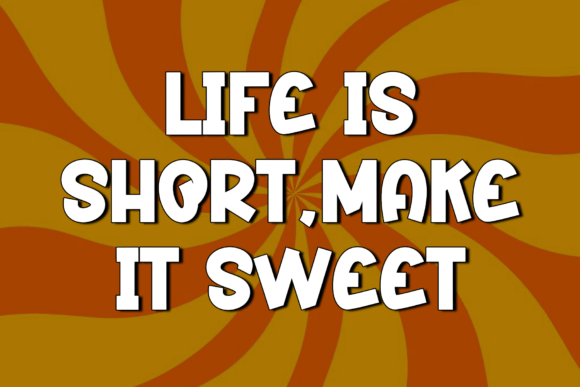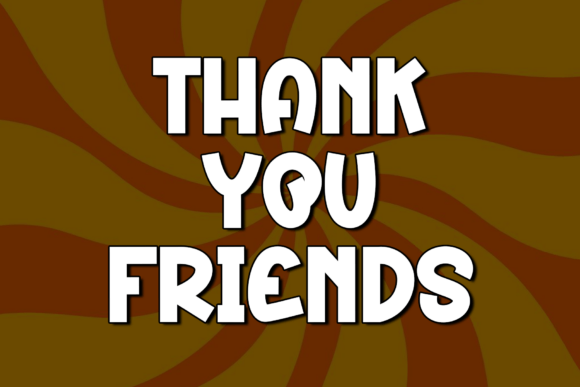
The Quest for the Perfect Font: How Book Comic Stole the Show
I’ll never forget the time I was working on a children’s book project, and my client asked me to find a font that was both playful and easy to read. I scoured the internet, tried out dozens of fonts, but nothing seemed quite right. That was until I stumbled upon Book Comic. This minimal and neat font has been a game-changer for my design projects, and I’m excited to share its awesomeness with you! 😊
An Honest Review of Book Comic
• ✨ **Clean and Simple Design**: Book Comic’s minimalist approach makes it perfect for a wide range of projects, from children’s books to crafts and DIY tutorials.
• ✅ **Highly Versatile**: This font can be used for both headings and body text, making it a great addition to any design toolkit.
• 💡 **Easy to Read**: The font’s clear and concise design ensures that your text is always legible, even at smaller font sizes.
While Book Comic is an excellent font, it’s not without its quirks. For example:
• 🤔 **Limited Extras**: Book Comic doesn’t come with a wide range of extra glyphs or OpenType features, but what it does offer is well-designed and useful.
• ⚠️ **May Not Suit All Brands**: The font’s playful nature might not be suitable for all brands or projects, especially those requiring a more formal tone.
The Story Behind Book Comic
Book Comic was designed with the goal of creating a clean, easy-to-read font for children’s books and educational materials. The designer aimed to craft a font that was both playful and professional, making it perfect for a wide range of creative projects.
Q: What type of projects is Book Comic best suited for?
A: Book Comic is versatile and can be used for various projects, including children’s books, crafts, DIY tutorials, and more.
Q: Does Book Comic come with any extra glyphs or OpenType features?
A: Book Comic offers a range of standard glyphs and some OpenType features, but it may not have an extensive set of extras.